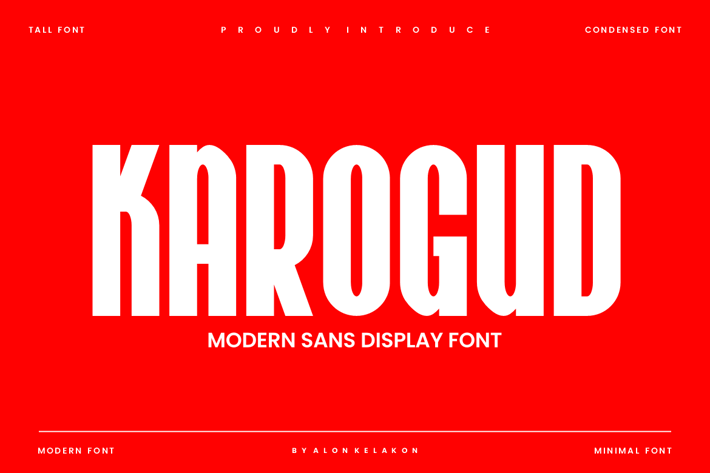
Karogud - Modern Minimal Font
Karogud Font is unique . Ready to use for your design like labeling, movie sceen, poster, movie title, gigs, album covers, logos, and much more.